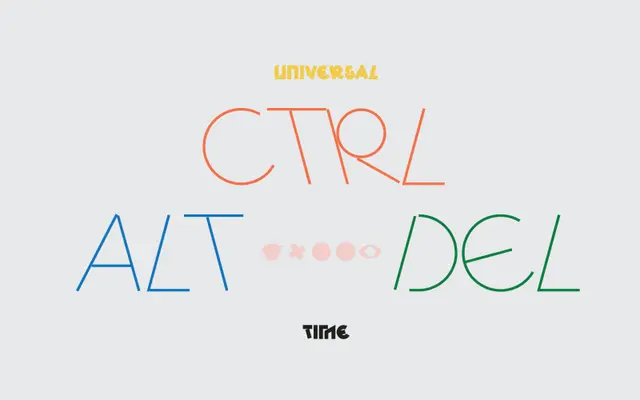
A three-weight experimental display face by Melbourne-based Studio io, built from deconstructed letterforms using sharp geometric forms and repetition.
Originating as a typographic poster project, Pyxis grew from a loose set of deconstructed letters into a full character set across Light, Regular and Heavy weights. Each character is constructed through geometric repetition, creating forms that deliberately test legibility while retaining a sense of play. The result suits high-impact editorial and poster work where visual oddity is an asset.
Pyxis is an experimental display typeface built from deconstructed, sharp geometric letterforms that push legibility to its limits, placing it firmly in the display/experimental category.